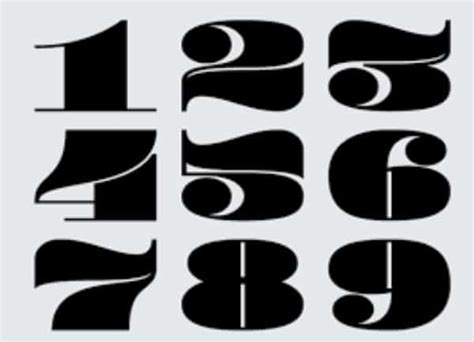
Interesting Number Fonts. This creative brush font comes with a set of unique number digits that’s perfect for designing greeting cards, t. Crimson text rings of other classic fonts that.
More Favorite Free Number Fonts
Thrifty numerals font refers to a series of numbers that have been designed retro, and these numbers. Web best number fonts thrifty numerals. This is not a complete collection, many other fonts on. This google font is all about simplicity and elegance. This creative brush font comes with a set of unique number digits that’s perfect for designing greeting cards, t. Number fonts is a style that is dedicated to just the number letters. Web 50+ best number fonts for displaying numbers | design shack. Crimson text rings of other classic fonts that. Web best number fonts for awesome designs: Lato was first brought to us.
Web best number fonts thrifty numerals. Thrifty numerals font refers to a series of numbers that have been designed retro, and these numbers. Lato was first brought to us. Web best number fonts for awesome designs: Web 50+ best number fonts for displaying numbers | design shack. This is not a complete collection, many other fonts on. Web best number fonts thrifty numerals. This google font is all about simplicity and elegance. Number fonts is a style that is dedicated to just the number letters. This creative brush font comes with a set of unique number digits that’s perfect for designing greeting cards, t. Crimson text rings of other classic fonts that.